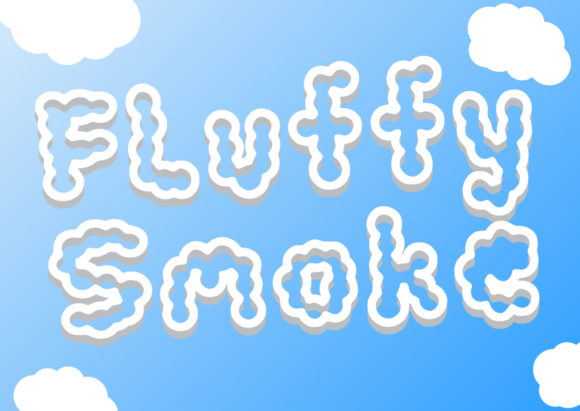
Introducing Fluffy Smoke Font, the ultimate choice for those seeking a font style that truly stands out. Created by the talented team at GraphicsBam Fonts, this rounded comic display font will add a touch of whimsy and individuality to any project. With its unique fluffy clouds look, Fluffy Smoke Font is guaranteed to captivate and inspire!
Fluffy Smoke Font is not your average typeface. Its playful and jovial design injects a sense of fun and creativity into every character. Whether you're designing a children's book, a logo, or a website, this font will instantly grab attention and make your content pop. Say goodbye to boring and predictable typography!
This font is a true chameleon, capable of adapting to various themes and styles effortlessly. Its versatility makes it suitable for a wide range of projects, from greeting cards and invitations to posters and social media graphics. Fluffy Smoke Font is your secret weapon to creating visually stunning and engaging content.
Imagine the impact of using Fluffy Smoke Font on your next project. Picture the smiles it will bring to faces, the laughter it will evoke, and the connections it will forge with your audience. This font has the power to evoke emotions and create a lasting impression, ensuring that your message is heard loud and clear.
But Fluffy Smoke Font is more than just a pretty face. It also offers practical benefits that will streamline your design process. With its easy-to-read characters and smooth curves, this font ensures that your text remains legible, even at small sizes. It's a font that not only looks great but also works effortlessly across different platforms and devices.